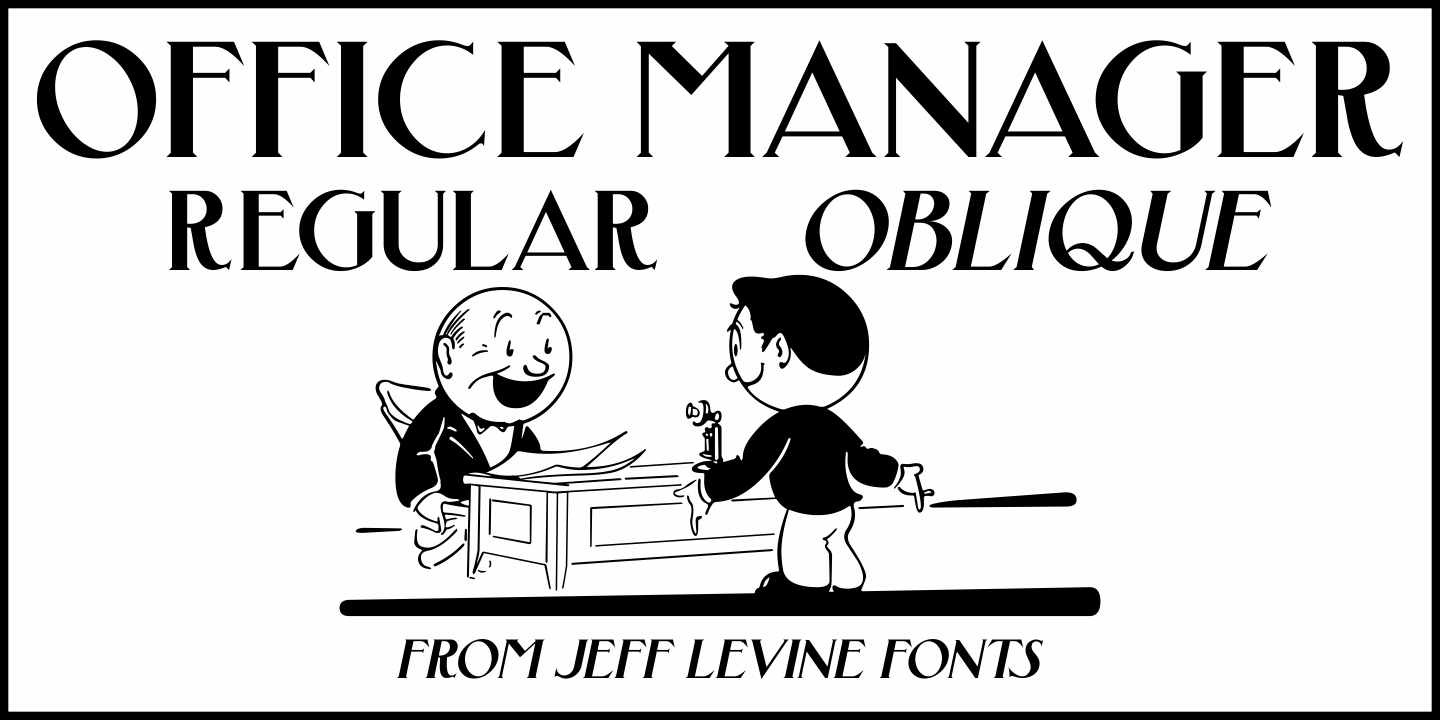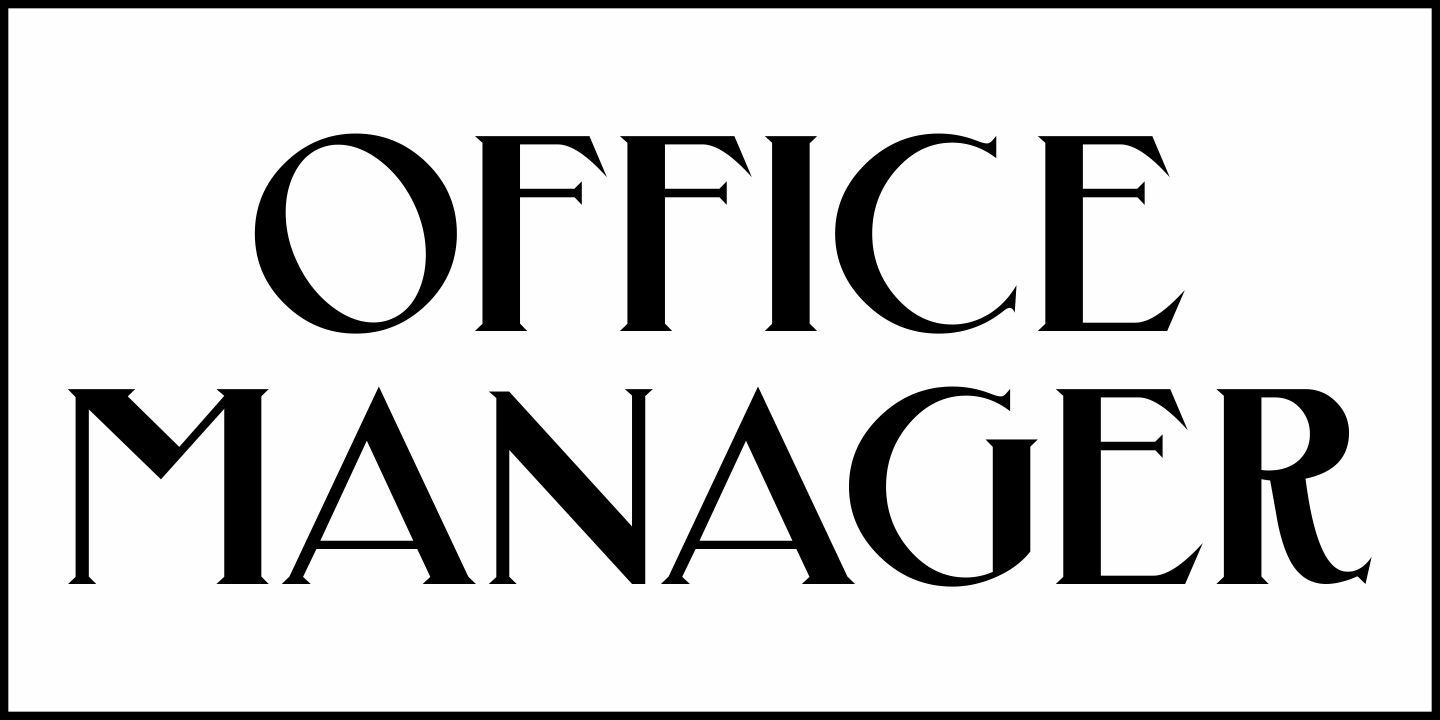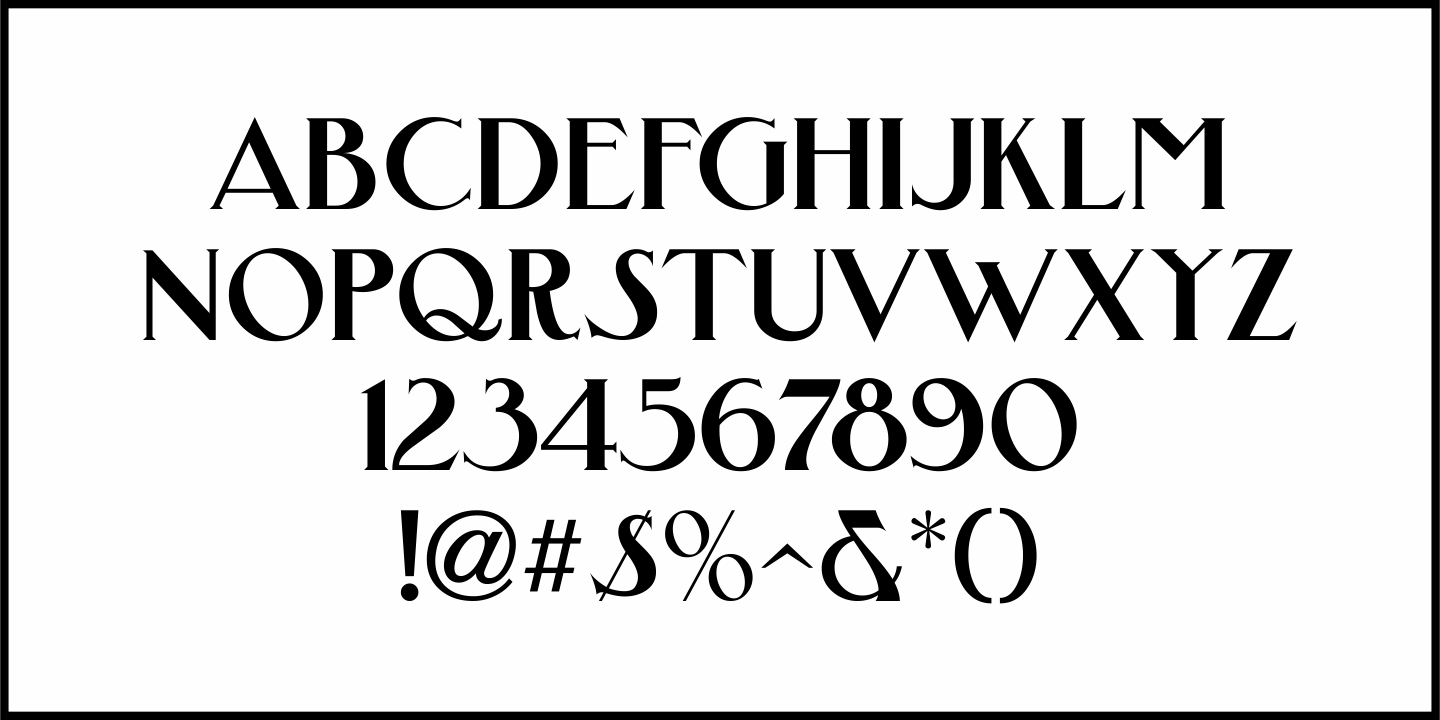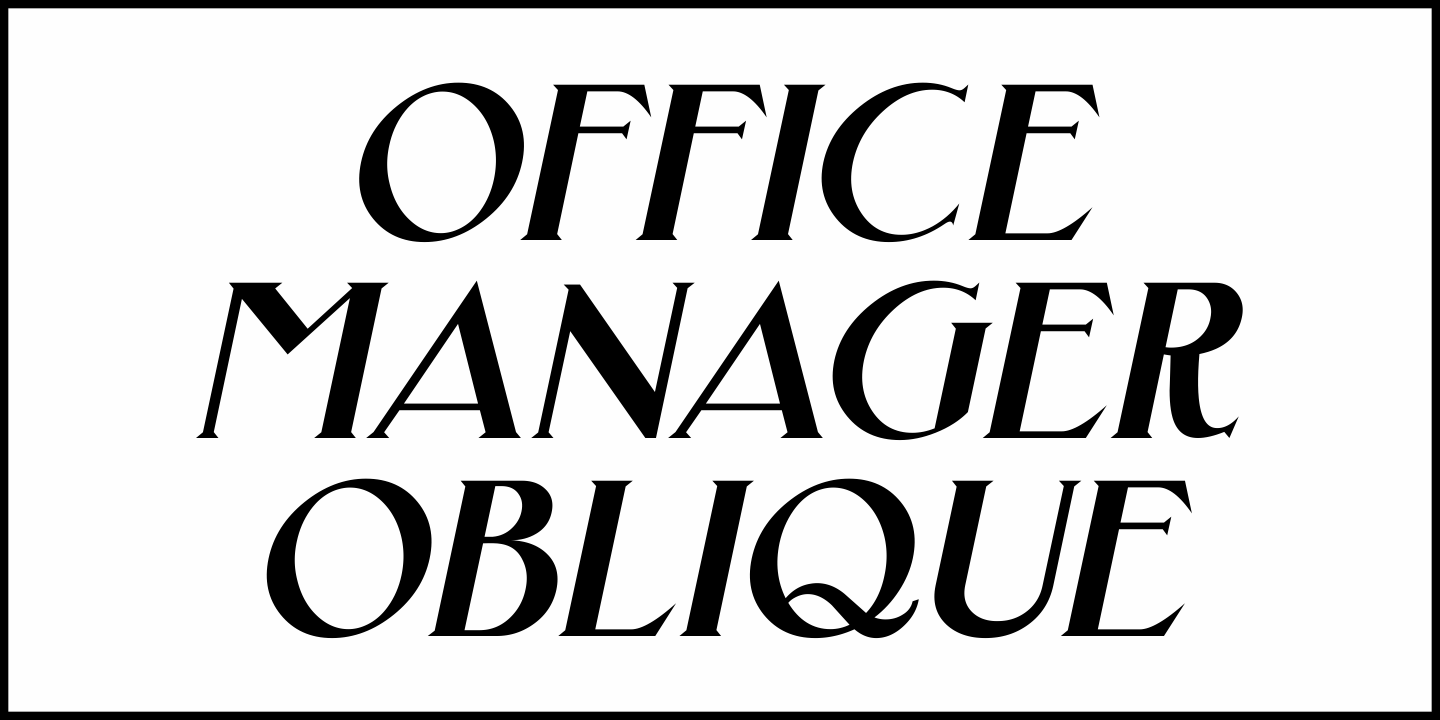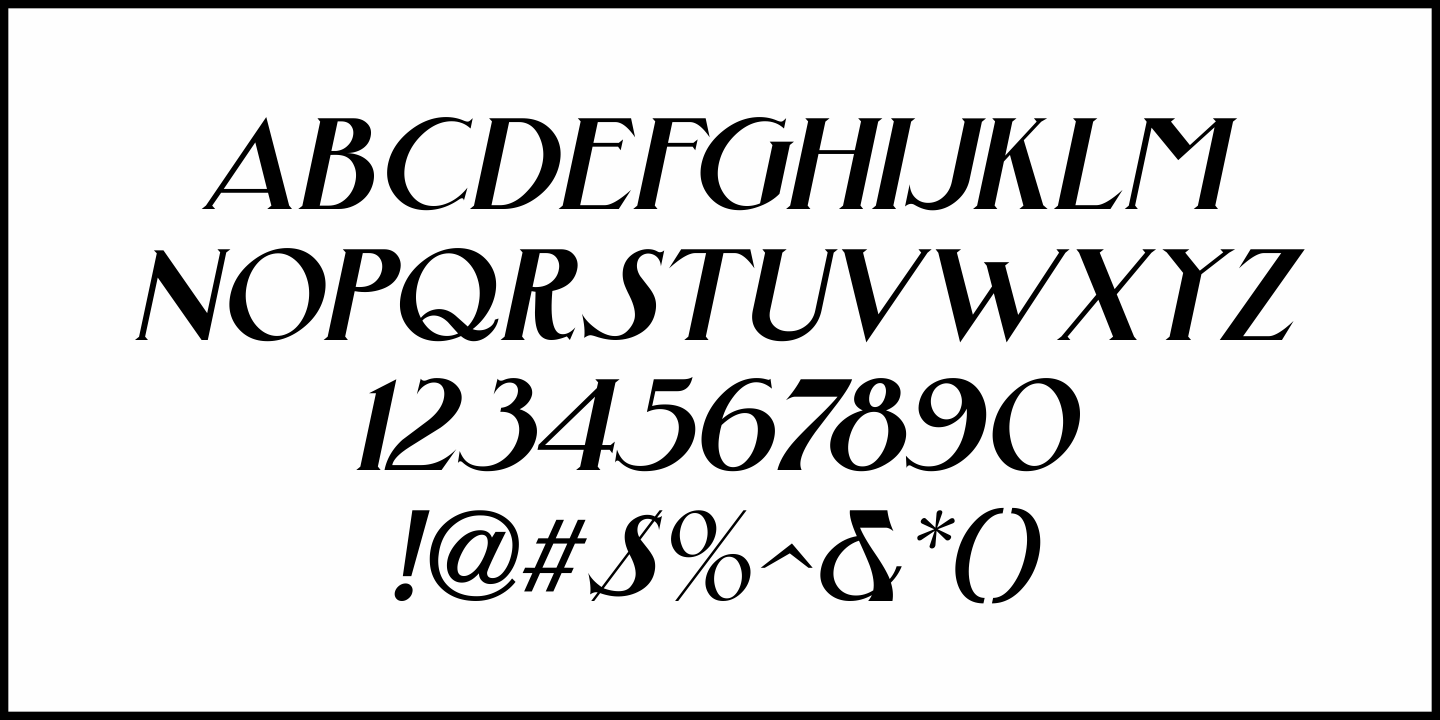
Office Manager
“Stillson” is an Art Nouveau-influenced font found within the pages of the 1881 Barnhart Bros. & Spindler type specimen book.
The digital revival is called Office Manager JNL, and is available in both regular and oblique versions.
Office Manager JNL Regular by Jeff Levine Fonts